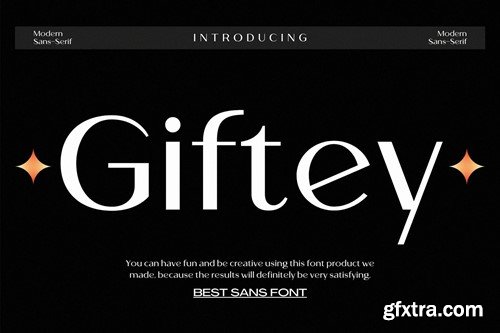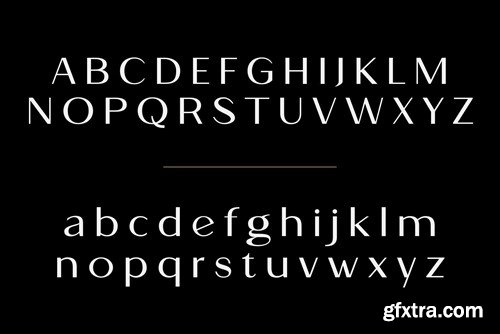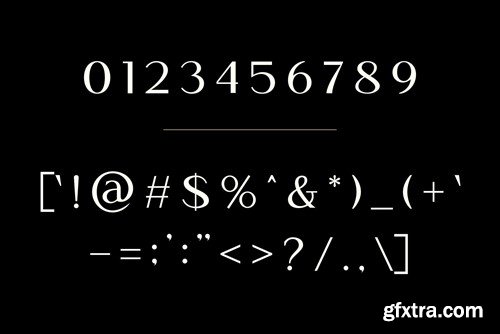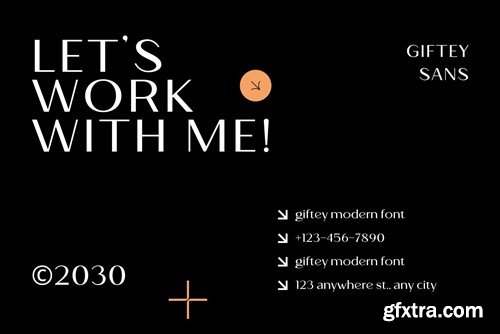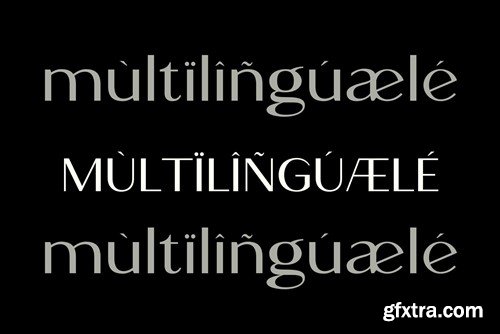
Giftey Modern Futuristic Font 3543FMX
Giftey Modern Futuristic Font
A beautiful series of letters is encapsulated in this 'Giftey' font. Neat lettering is perfect for writing needs that are modern and pleasing to the eye, there is a Modern impression but still looks Elegant when used for writing. Tidiness in the manufacture of each letter, is our top priority. You can have fun and be creative using this font product we made, because the results will definitely be very satisfying. What do you get: -OTF -TTF -WOFF This font is ready to be used to support your next design needs. Thank You!